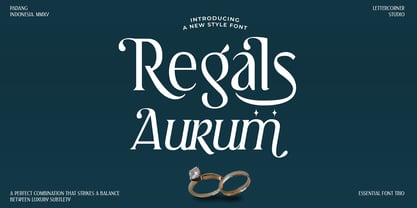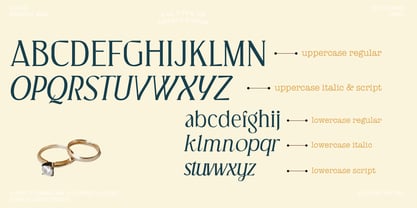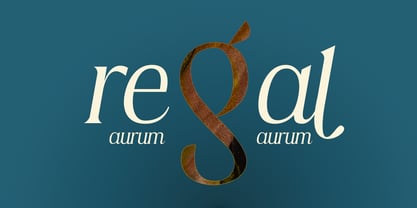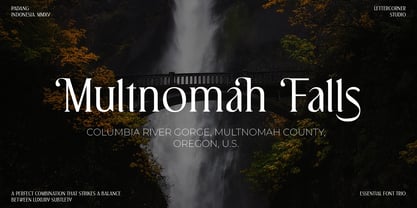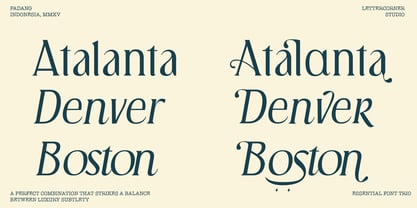
Regals Aurum
by Mevstory Studio
The Regals Aurum Font Family was designed by Muhammad Afif Ersya and published by Mevstory Studio. Regals Aurum contains 3 styles and family package options. More about this family
Introducing, Regals Aurum - Essential Font Trio with luxury and classic style
Regals Aurum is an essential font collections that combining three fonts including regular, italic, and script. This font trio also support multilingual, number and symbol. With the versatile style, You can use this font for any purpose such as logotype, branding, wedding invitations, and quotes. The best part is, you don't need to search for the pairing. It's gonna compliment each other.
Designers: Muhammad Afif Ersya
Foundry: Mevstory Studio